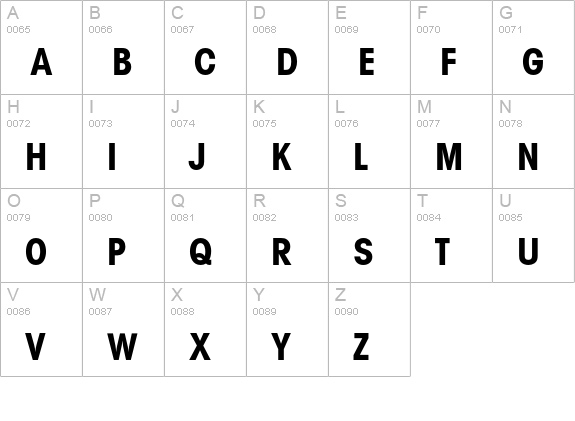
AvantGardEF-BoldCond is a modern and stylish typeface that exudes a sense of sophistication and elegance. Its bold condensed design makes it perfect for creating eye-catching headlines and titles that demand attention. The geometric shapes and clean lines of this font give it a contemporary and avant-garde feel, making it ideal for a wide range of design projects. The versatility of AvantGardEF-BoldCond allows it to be used in various design applications, from branding and advertising to packaging and signage. Its bold and condensed style ensures that your message will be delivered with impact and clarity. Best of all, AvantGardEF-BoldCond is available for free download at FontsMarket.com, allowing you to access this high-quality font without any cost. Whether you're a designer looking to add a touch of sophistication to your projects or a business in need of a striking typeface for your marketing materials, AvantGardEF-BoldCond is the perfect choice. Download it today and elevate your designs with this sleek and modern font.